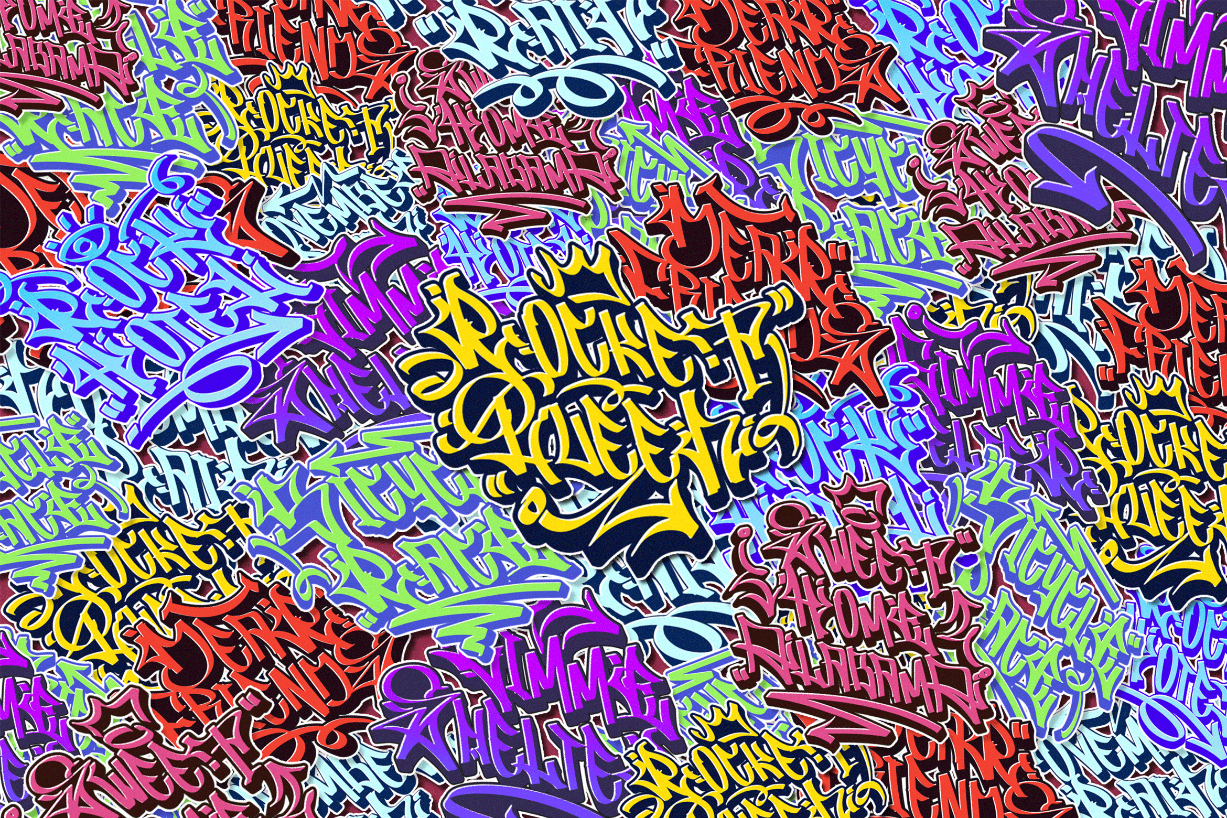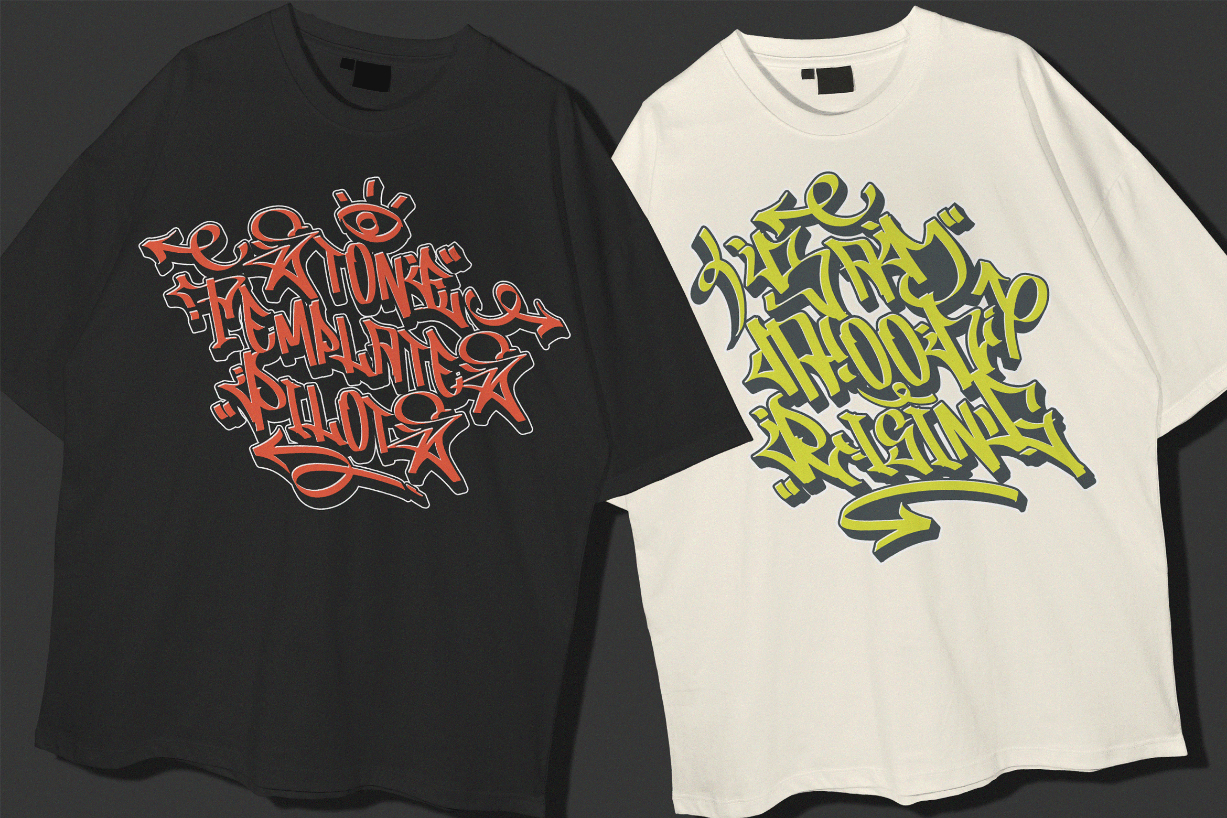
About Black Hearts Font
Introducing “Black Hearts,” a cutting-edge freestyle graffiti font that brings an urban edge to your design projects. This font is a testament to the rebellious spirit and creative expression found in street art. With its bold strokes and dynamic letterforms, “Black Hearts” captures the essence of graffiti culture, delivering a raw and authentic feel to your designs.
Freestyle Graffiti Design: “Black Hearts” is crafted with a freestyle approach, emulating the spontaneous and expressive nature of graffiti art. The characters showcase a mix of intricate details and bold lines, creating a visually striking and edgy aesthetic.
Regular and Extruded Versions: Take your designs to the next level with the 3D flair of “Black Hearts.” The font comes with both regular and extruded versions, providing you the flexibility to experiment with depth and dimensionality in your typographic compositions.
Graffiti Swashes: Add an extra layer of creativity to your designs with the included graffiti swashes. These unique elements complement the font’s style, allowing you to embellish your text with expressive strokes and energetic curves.
Ornamental Elements: Elevate your design projects with the diverse range of ornamental elements included in “Black Hearts.” From spray-paint-inspired accents to urban motifs, these ornaments provide additional creative options for making your designs truly distinctive.
“Black Hearts” is perfect for projects that demand an authentic urban vibe. Whether you’re working on street art posters, album covers, clothing designs, or any project that requires a rebellious and contemporary feel, this font is your go-to choice.